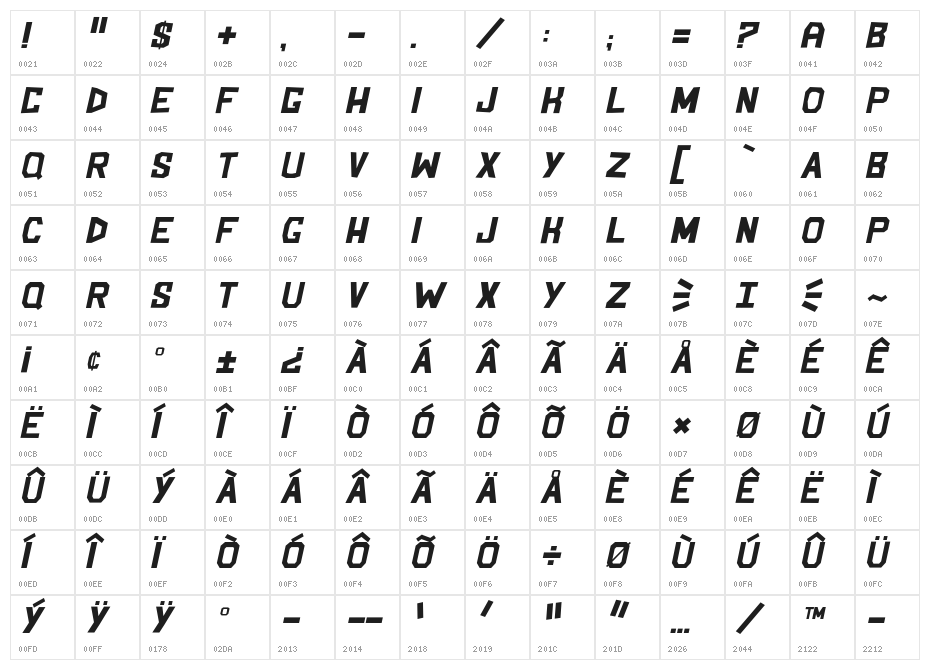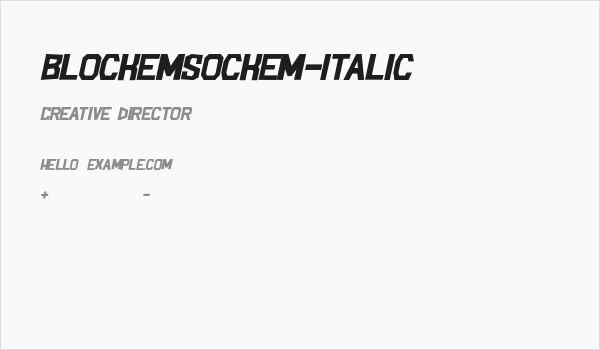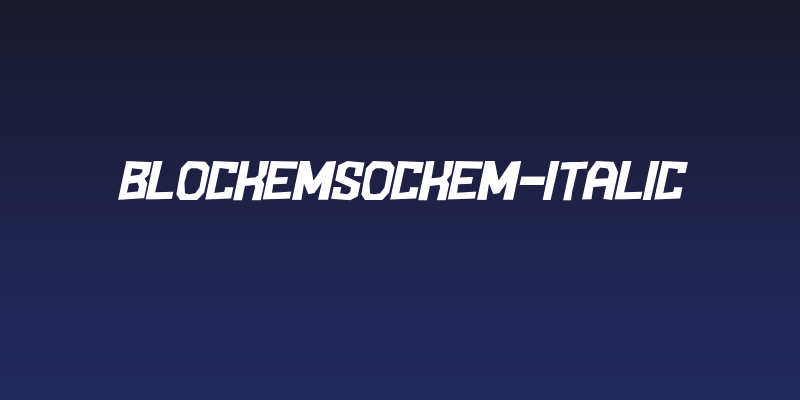
BlockemSockem-Italic Font
BlockemSockem-Italic Description
This font features a bold, italicized style with a distinct angular design. The characters are sharply defined with a forward-leaning stance, giving a sense of motion and energy. The uppercase and lowercase letters maintain a consistent geometric structure, while the numbers and special characters complement the overall aesthetic. The font's thick strokes and dynamic slant make it ideal for attention-grabbing designs. Its unique appearance is both modern and slightly aggressive, suitable for projects that require a strong visual impact.
Proposed ProjectsIdeal for sports branding, action-themed posters, video game titles, and dynamic logos.